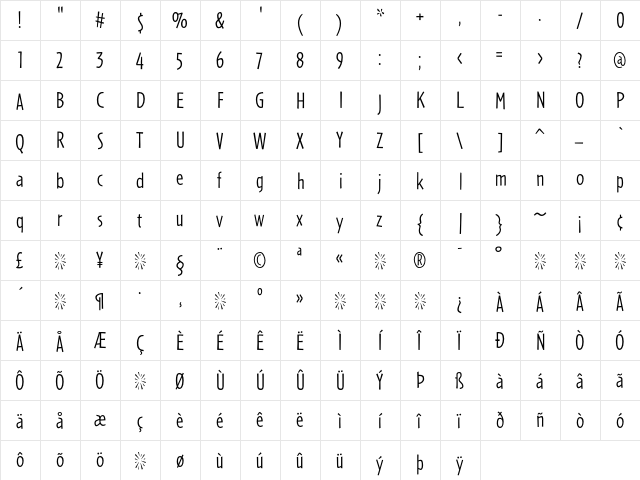
Cafeteria Light
Design Context for Cafeteria Typeface
Cafeteria offers clean, dependable letterforms without strong stylistic allegiance, making it a practical choice for designers who need flexibility. Its slender proportions lend an understated elegance to any composition.